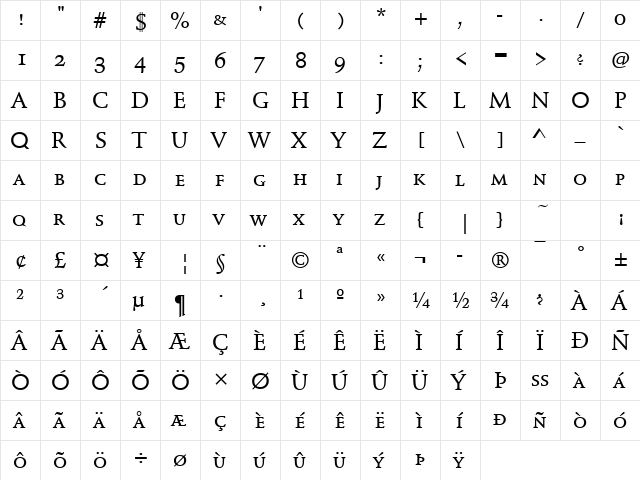
SchneidlerMedSCTMed Regular
Design Context for SchneidlerMedSCTMed Typeface
SchneidlerMedSCTMed is a composed and adaptable typeface that performs quietly and consistently across a wide range of design contexts.